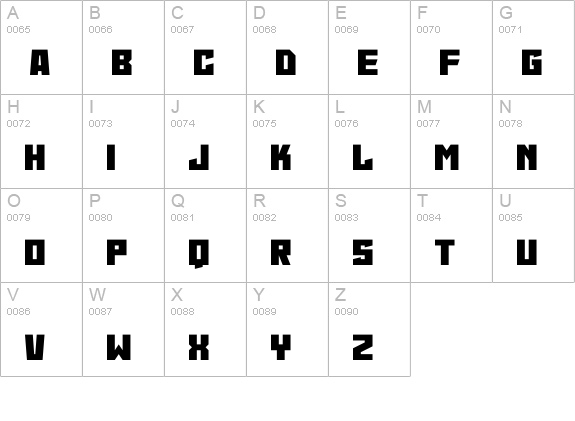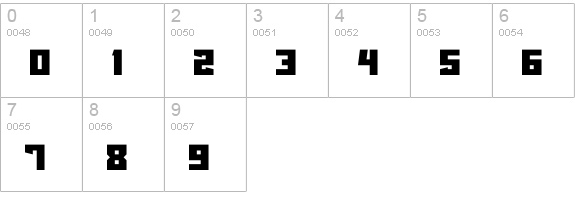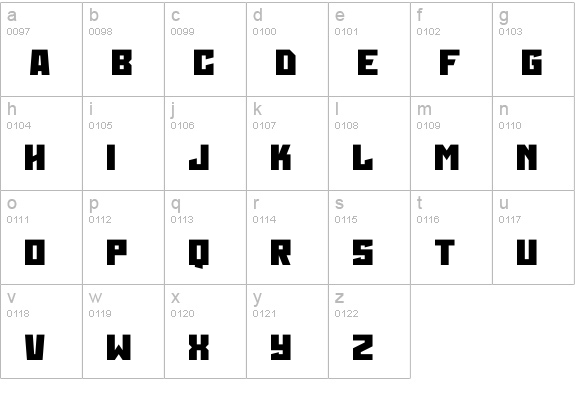
Martian Wars Font Details
Martian Wars is a donationware font in the Modern > Sci-Fi category, designed by Darrell Flood. It has been downloaded 60 times and is available for Windows, Mac and Linux.
The Martian Wars font is a futuristic and edgy typeface that captures the essence of intergalactic battles and otherworldly landscapes. With its bold letterforms and sleek design, this font is perfect for projects that require a modern and dynamic touch.